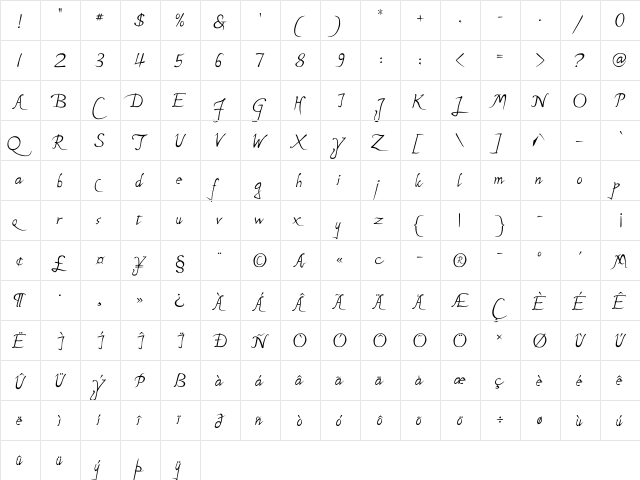
P22 Michelangelo Regular Regular
Design Context for P22 Michelangelo Regular Typeface
P22 Michelangelo Regular is a composed and adaptable typeface that performs quietly and consistently across a wide range of design contexts.